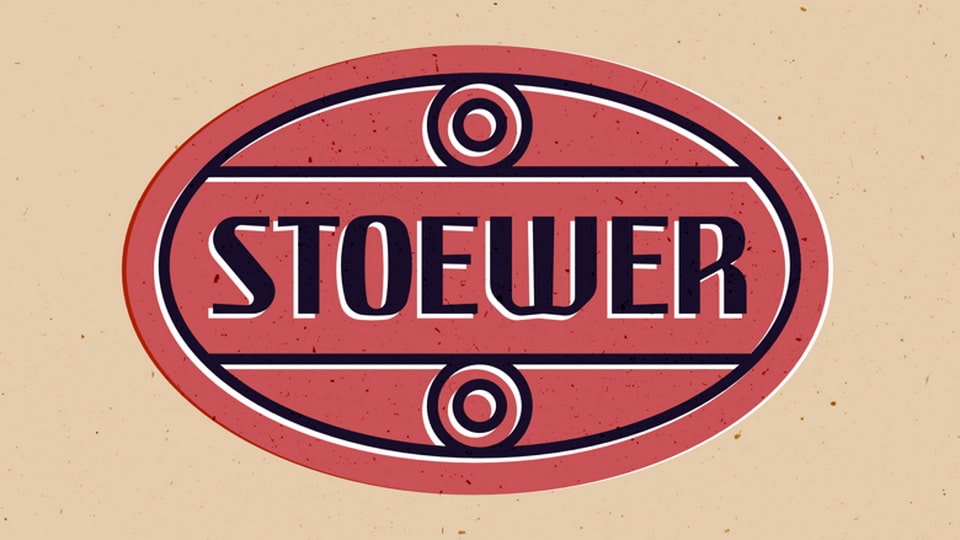
Download Stoewer Überschrift a typeface created for the bachelor’s diploma project by the title of “Stoewer Überschrift, Stoewer by font – Font design for Muzeum Techniki i Komunikacji Zajezdnia Sztuki w Szczecinie, inspired by lettering used on Stoewer factories’ products”.
Designer: Jagoda Jadwiga